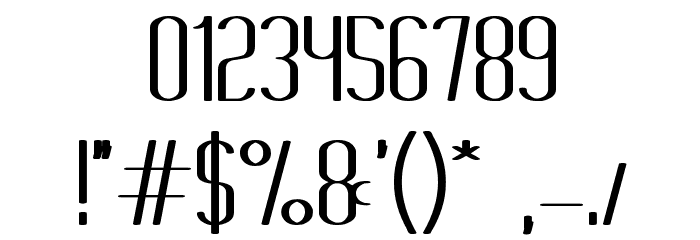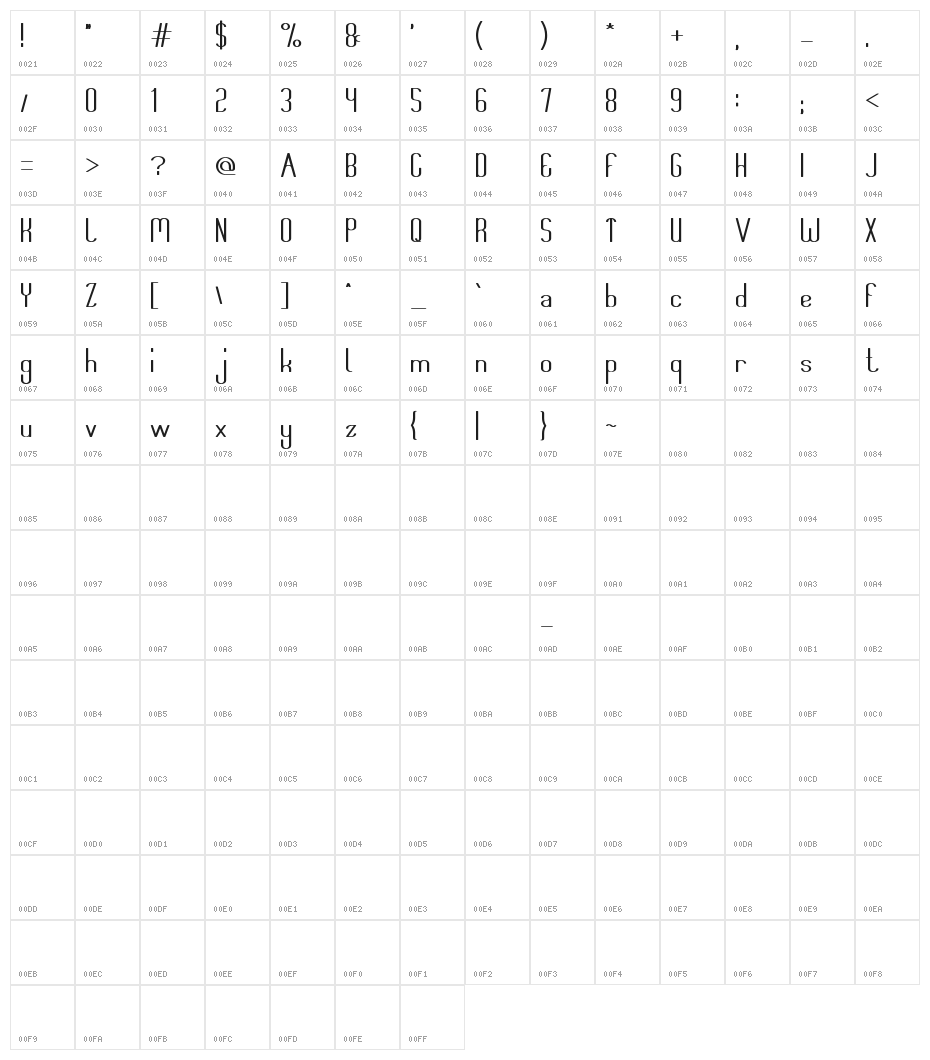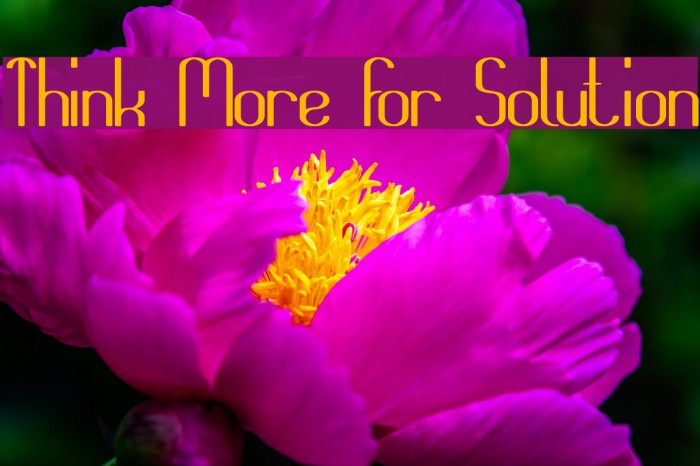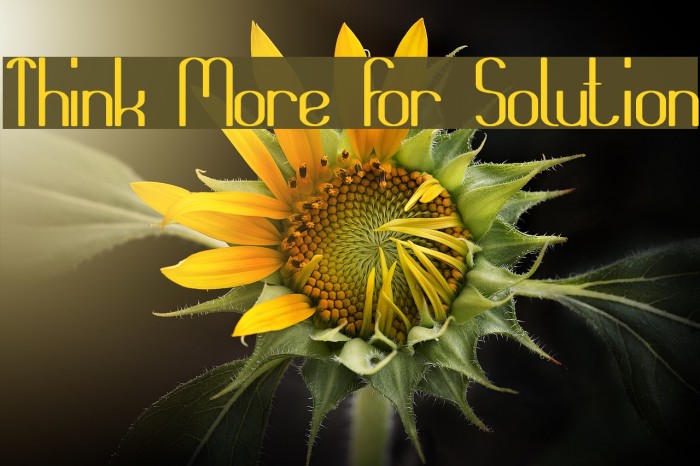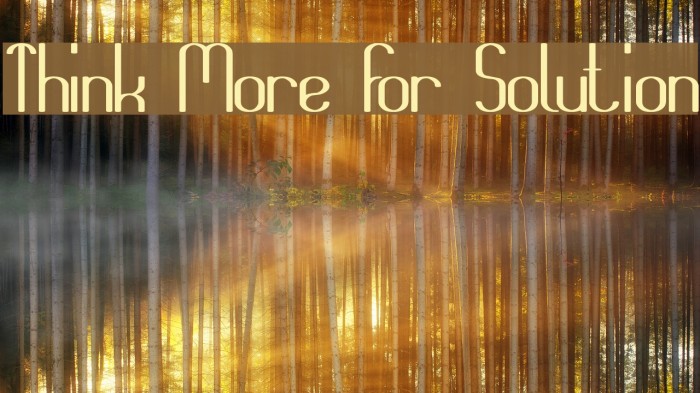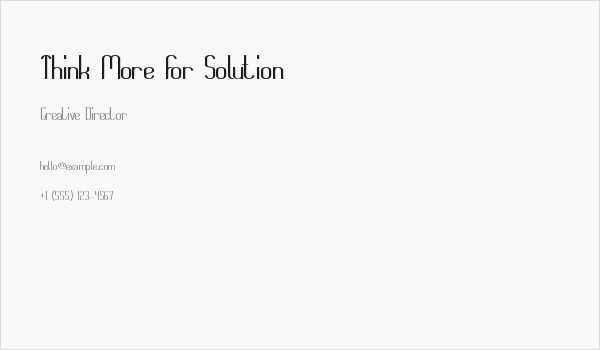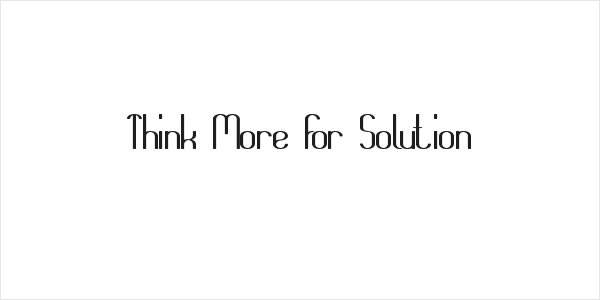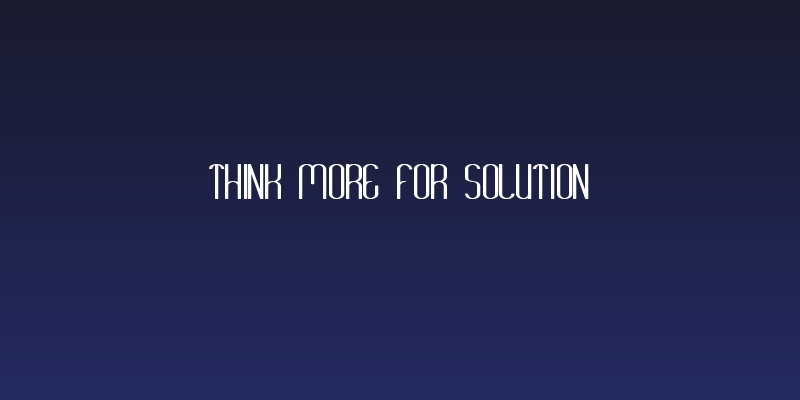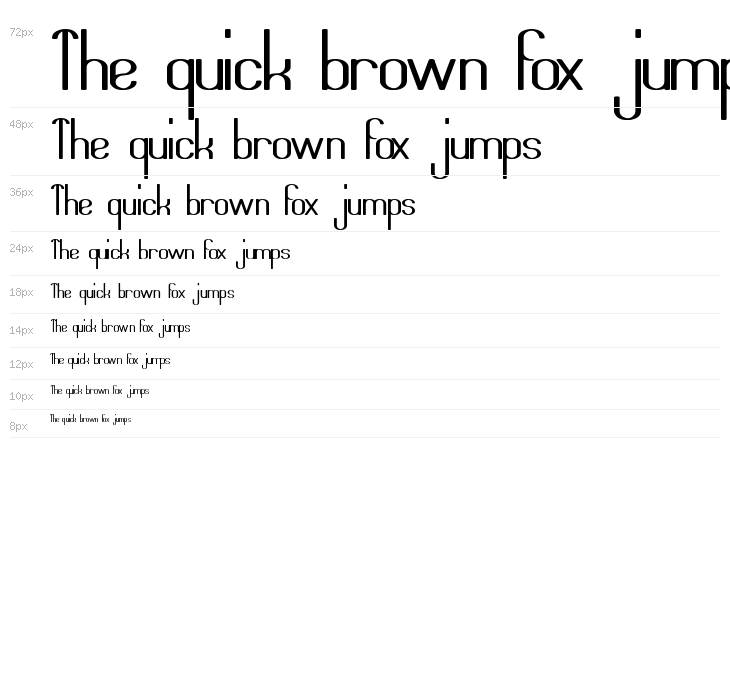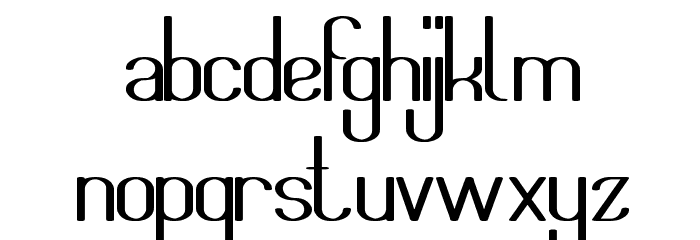
Think More For Solution Font
Think More For Solution Description
This font features a unique and modern design with elongated and narrow letterforms. The uppercase letters are tall and slender, while the lowercase letters maintain a consistent height, creating a cohesive look. The numbers are similarly styled, with a sleek and contemporary appearance. Special characters are designed to complement the overall aesthetic, maintaining the same narrow and elongated style. The font's clean lines and geometric shapes give it a distinctive and stylish appearance, making it suitable for various creative projects.
| Proposed Projects | Ideal for branding, posters, modern web design, and editorial layouts. |